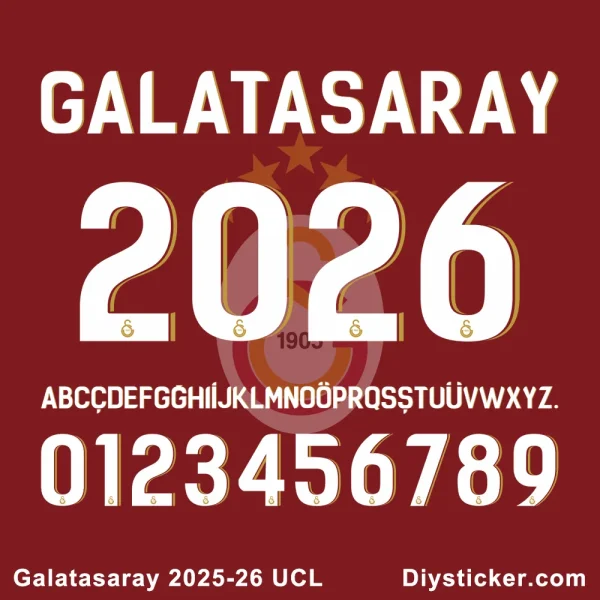
Galatasaray 2025-26 UCL Font Downloads – Champions League
Experience the prestige of European nights with the official Galatasaray 2025-2026 UEFA Champions League Font. This is the exclusive typeface used by the Turkish giants on their official UCL match kits and tournament-related graphics.